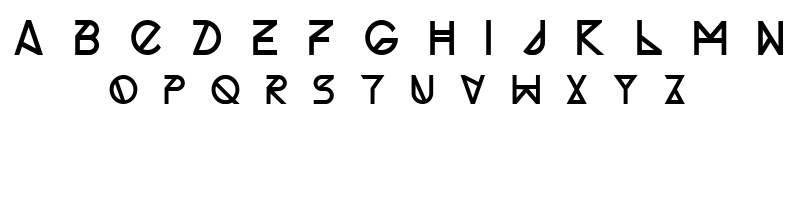
TYDE is an experimental font designed to be used for a school project.
I know there are many fonts with similar style, however i wanted to create one with my own take on it.